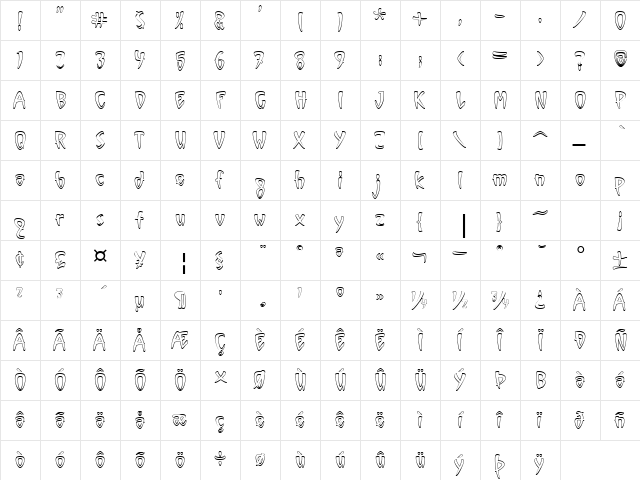
Vinyl Outline ITC TT Regular
Design Context for Vinyl Outline ITC TT Typeface
Vinyl Outline ITC TT is built around its visual character rather than neutral utility — its distinctive forms are designed to make an impression at display sizes.
Font Pairing: Pair with a clean neutral sans-serif for body copy to let Vinyl Outline ITC TT's character lead without overwhelming the composition.
Pro Tip: Treat Vinyl Outline ITC TT as the centrepiece of your typographic hierarchy. One strong heading set in a decorative face can carry an entire layout.